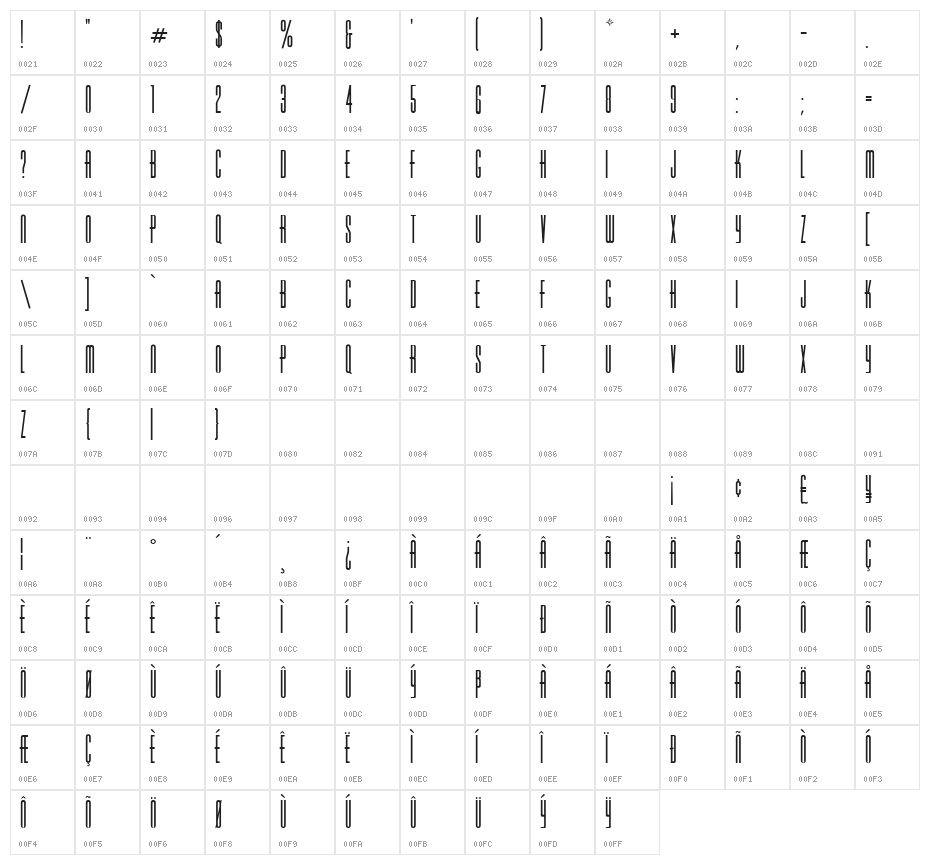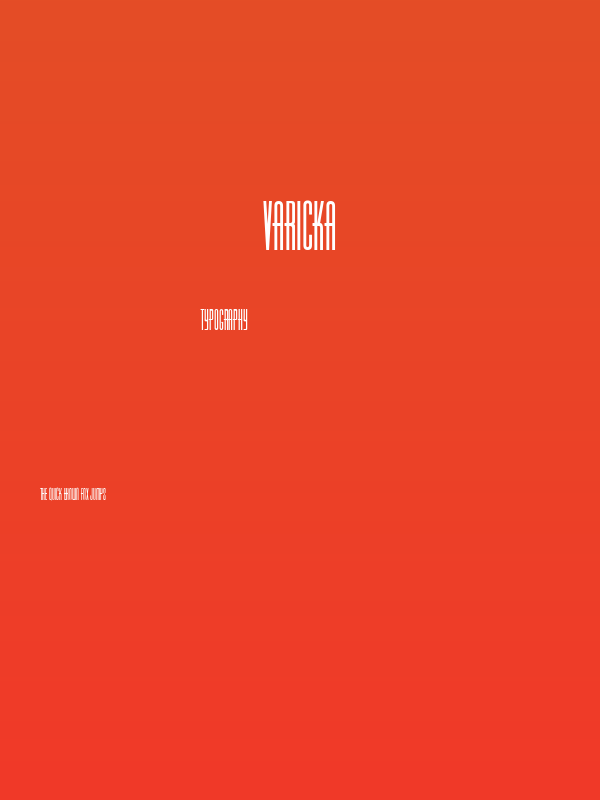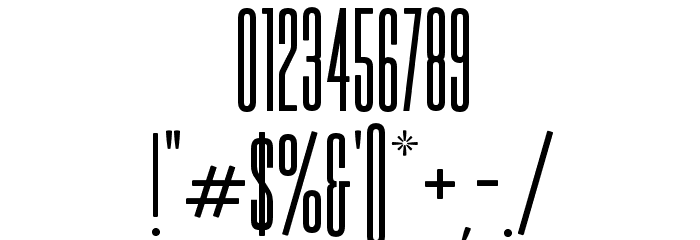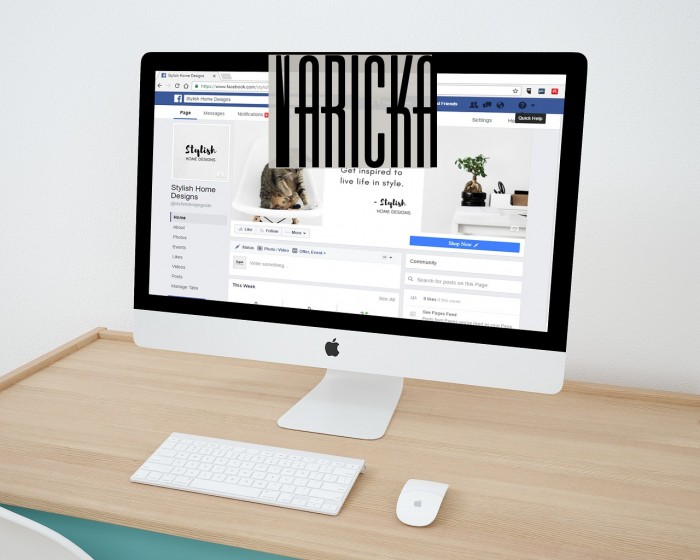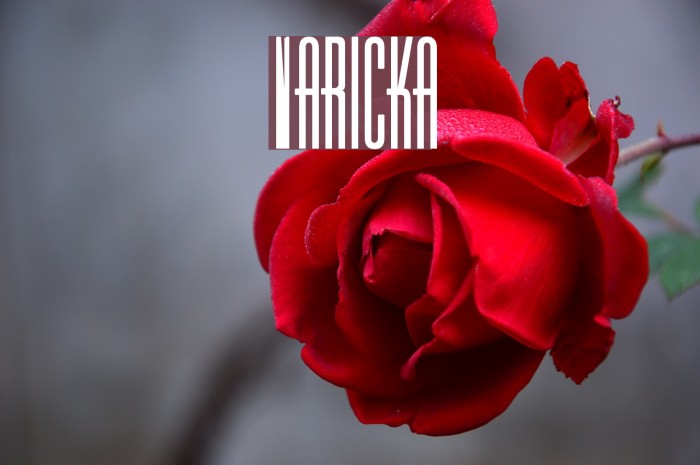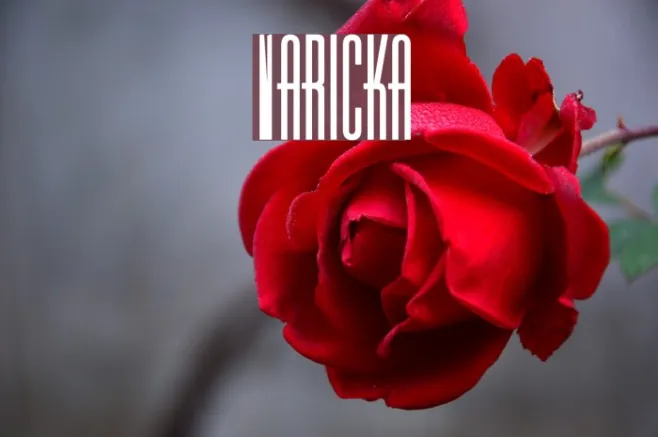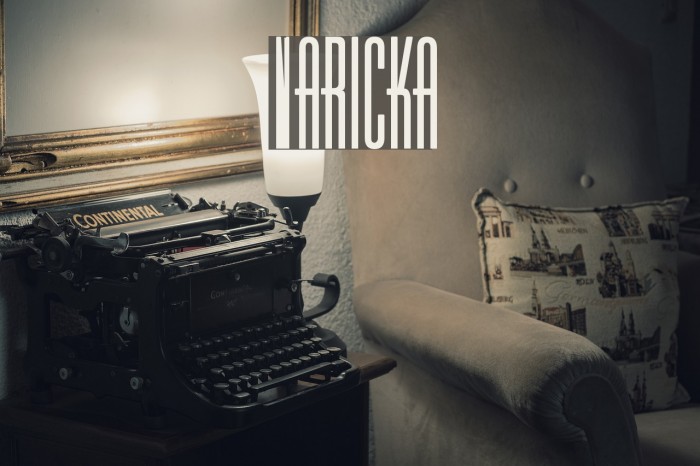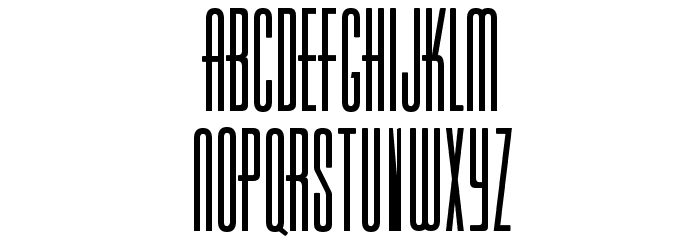
Varicka Font
Varicka Description
This font features an elongated and narrow design, emphasizing verticality with its tall, slender characters. The uppercase letters are particularly striking, with consistent height and a modern, geometric aesthetic. The lowercase letters maintain this sleek appearance, providing a cohesive look across the alphabet. The numerals are similarly styled, ensuring uniformity throughout. Special characters are included, matching the overall style with a clean and contemporary feel. The font's design is both eye-catching and versatile, suitable for a variety of creative applications.
| Proposed Projects | Ideal for posters, headlines, branding, and editorial design where a modern and distinctive look is desired. |